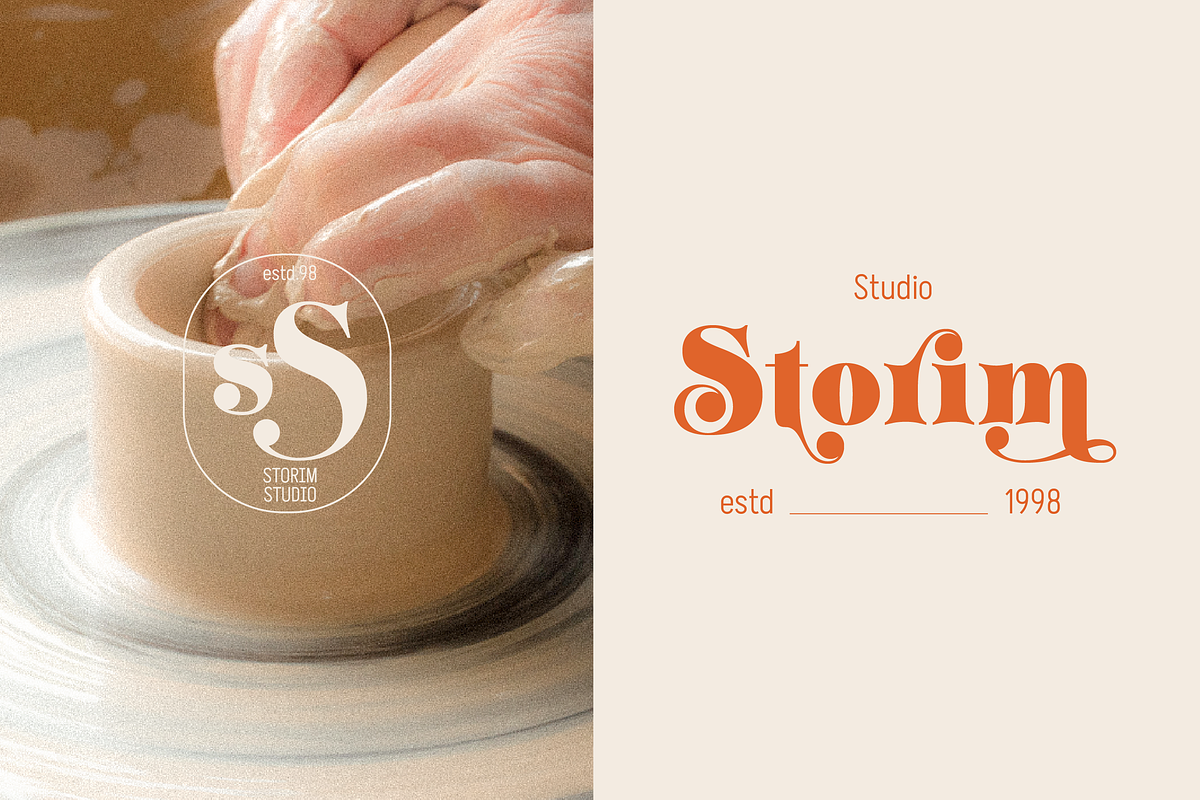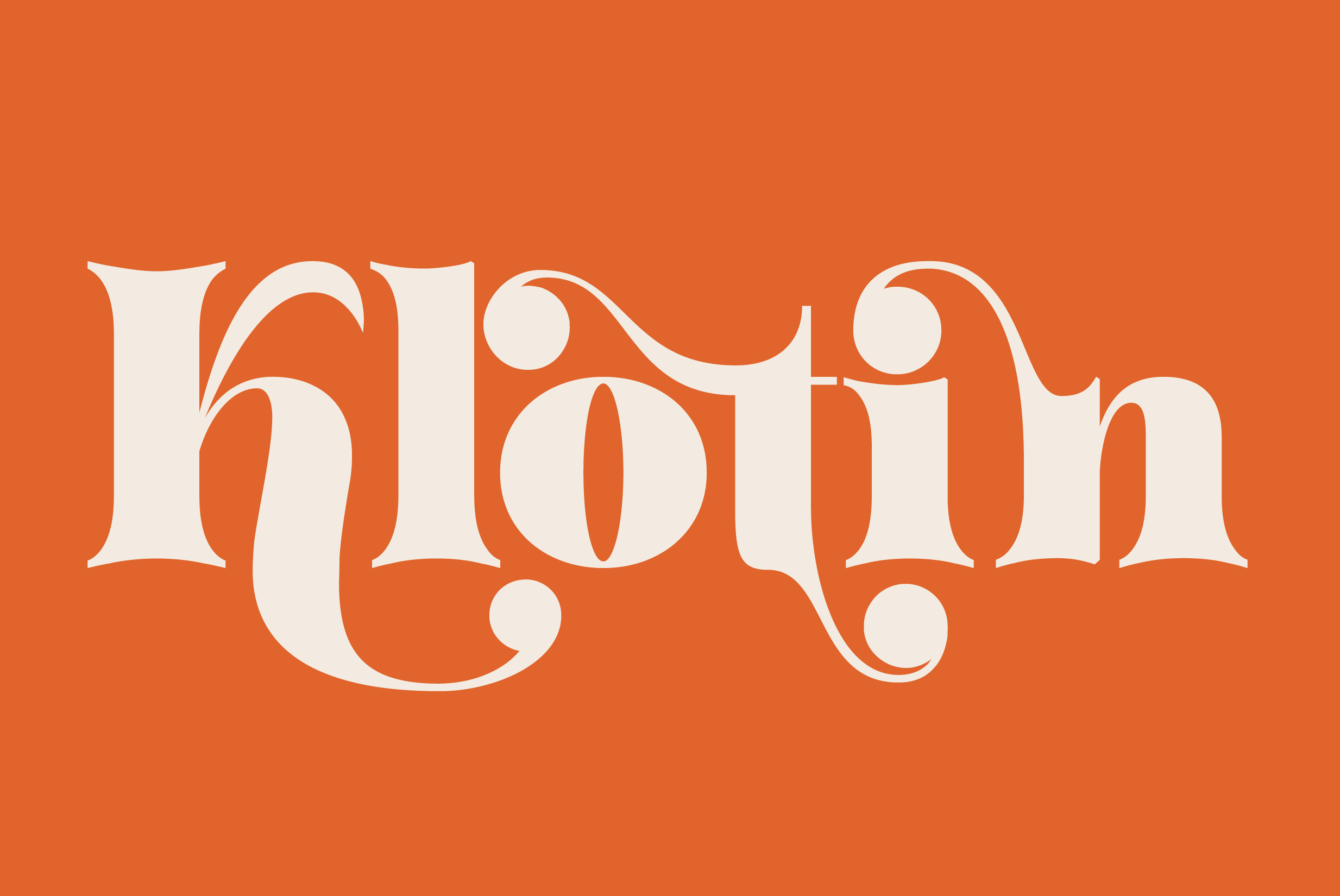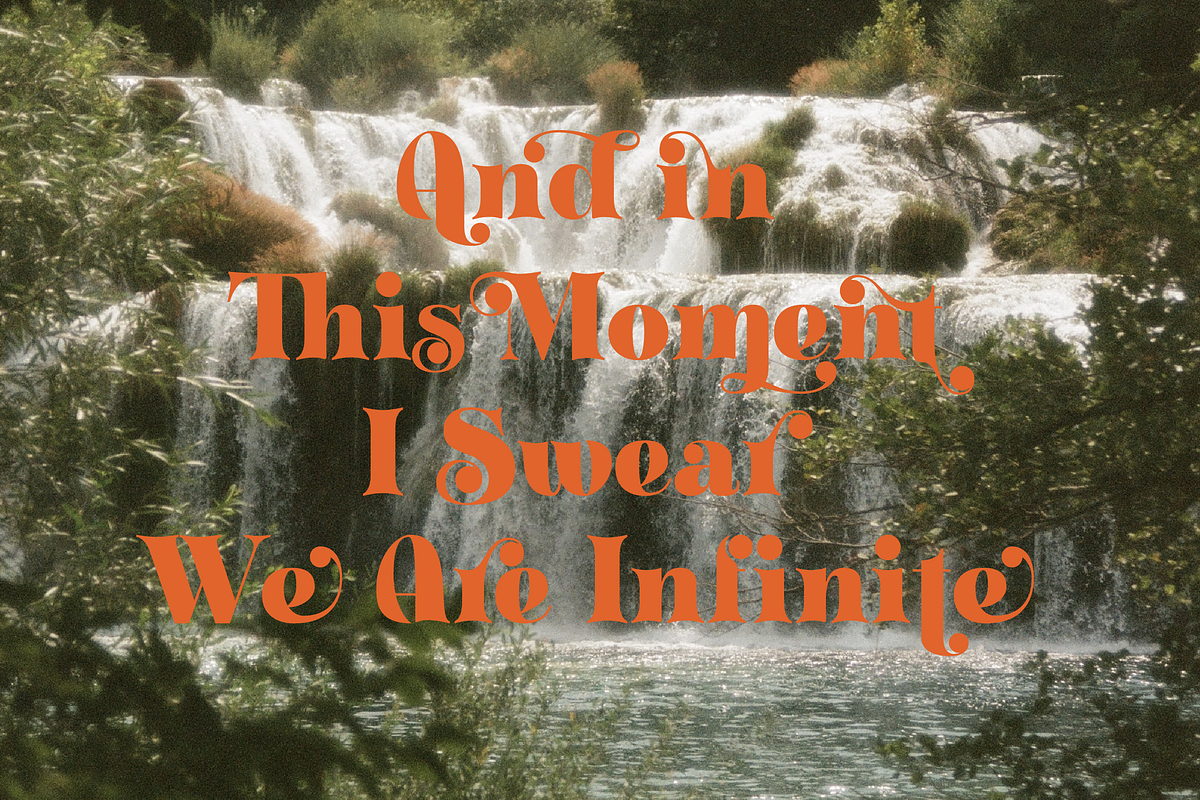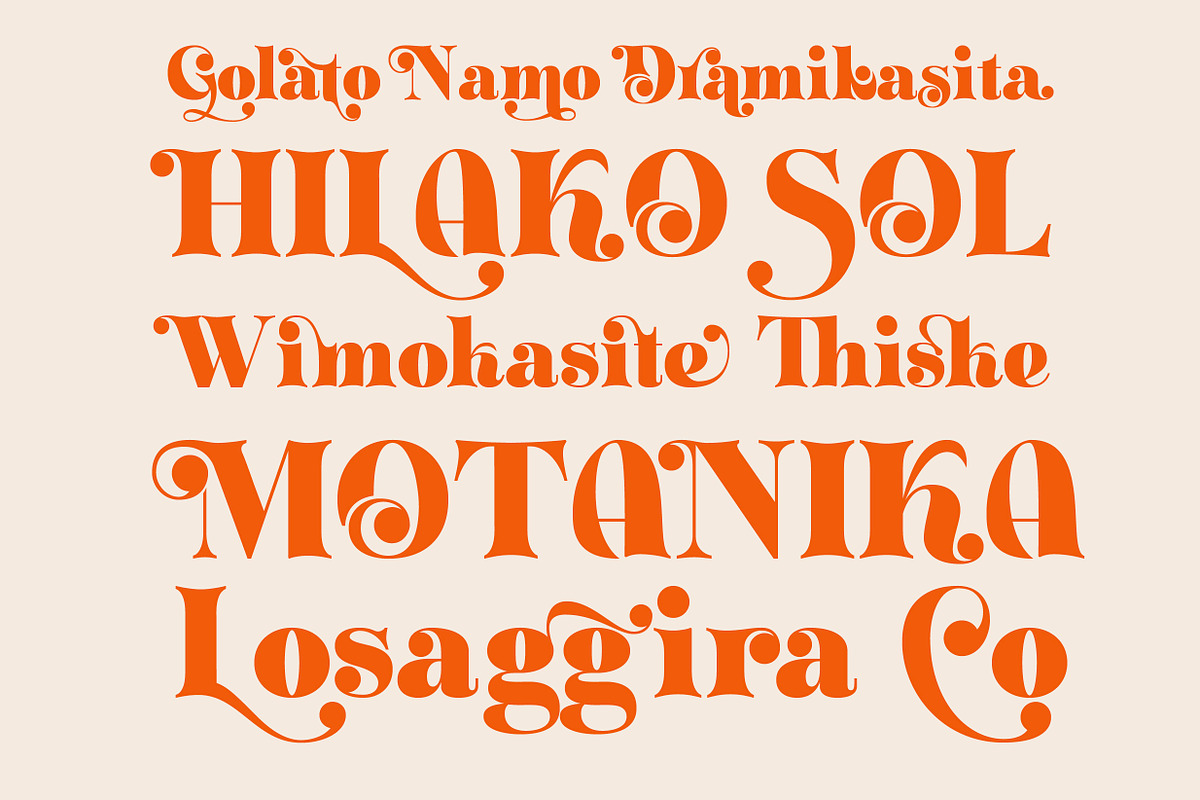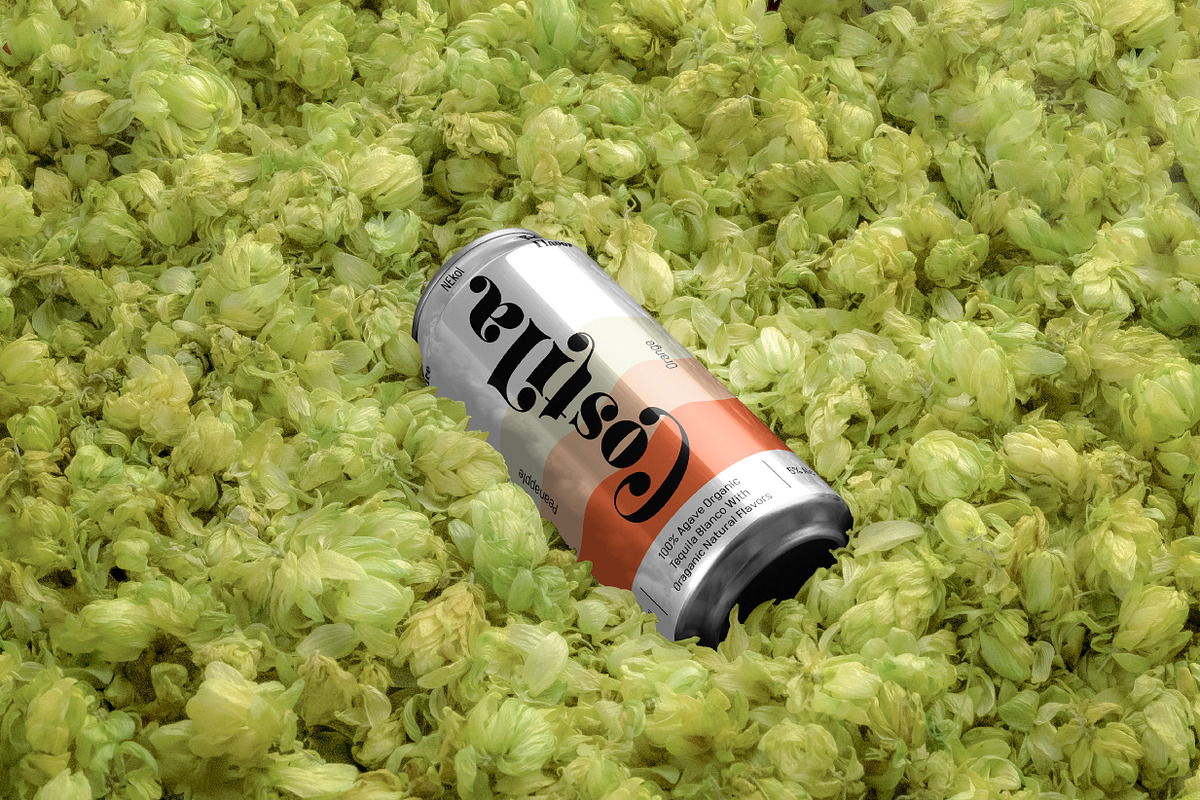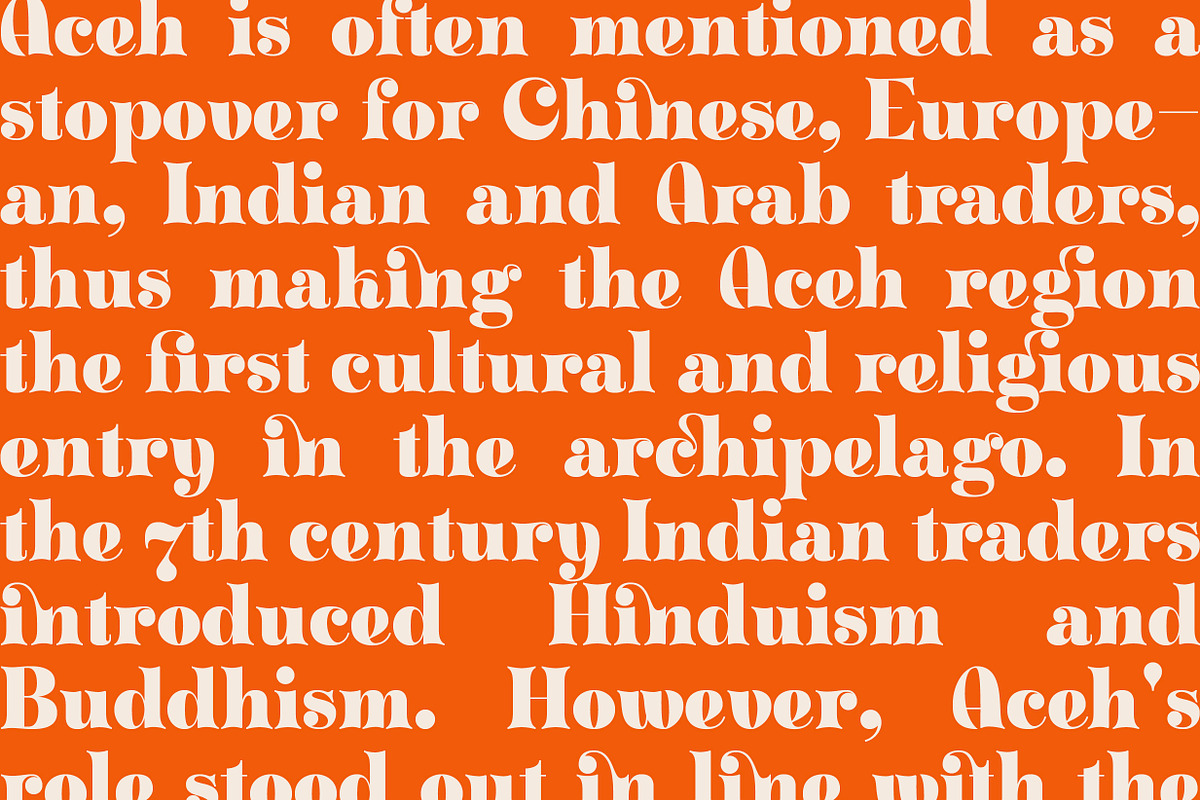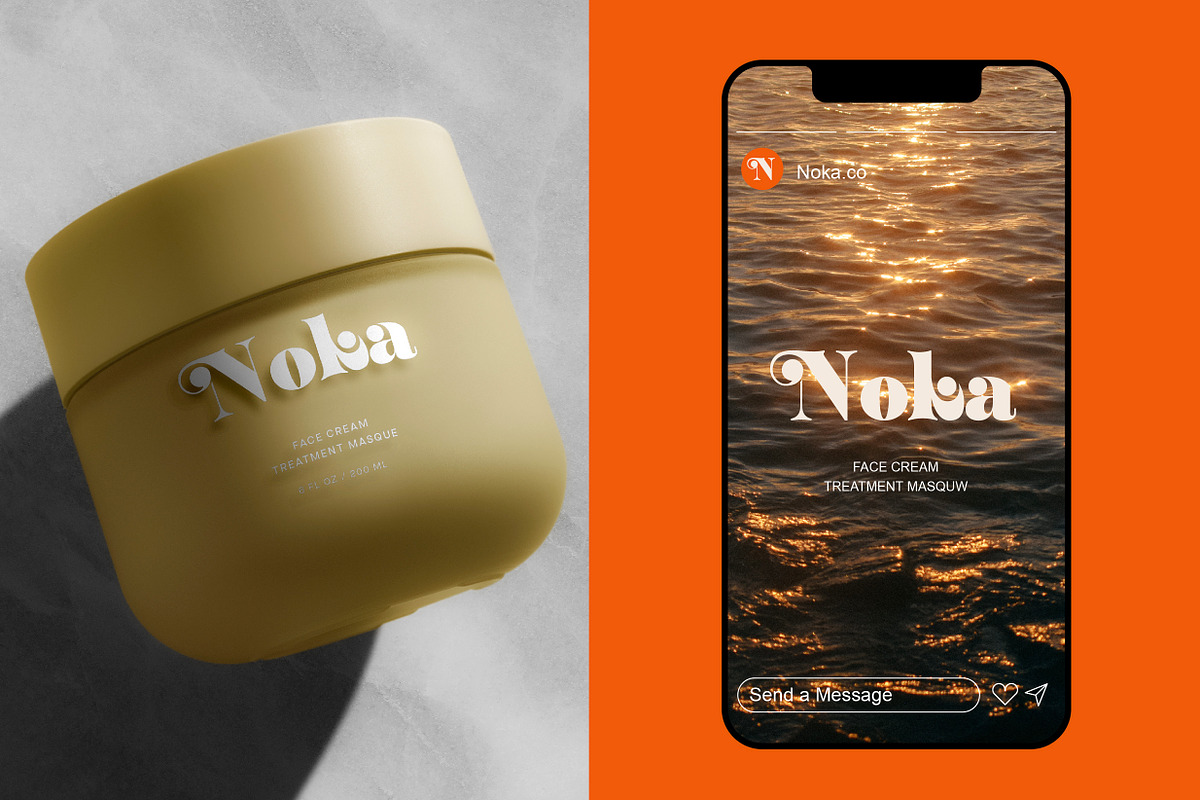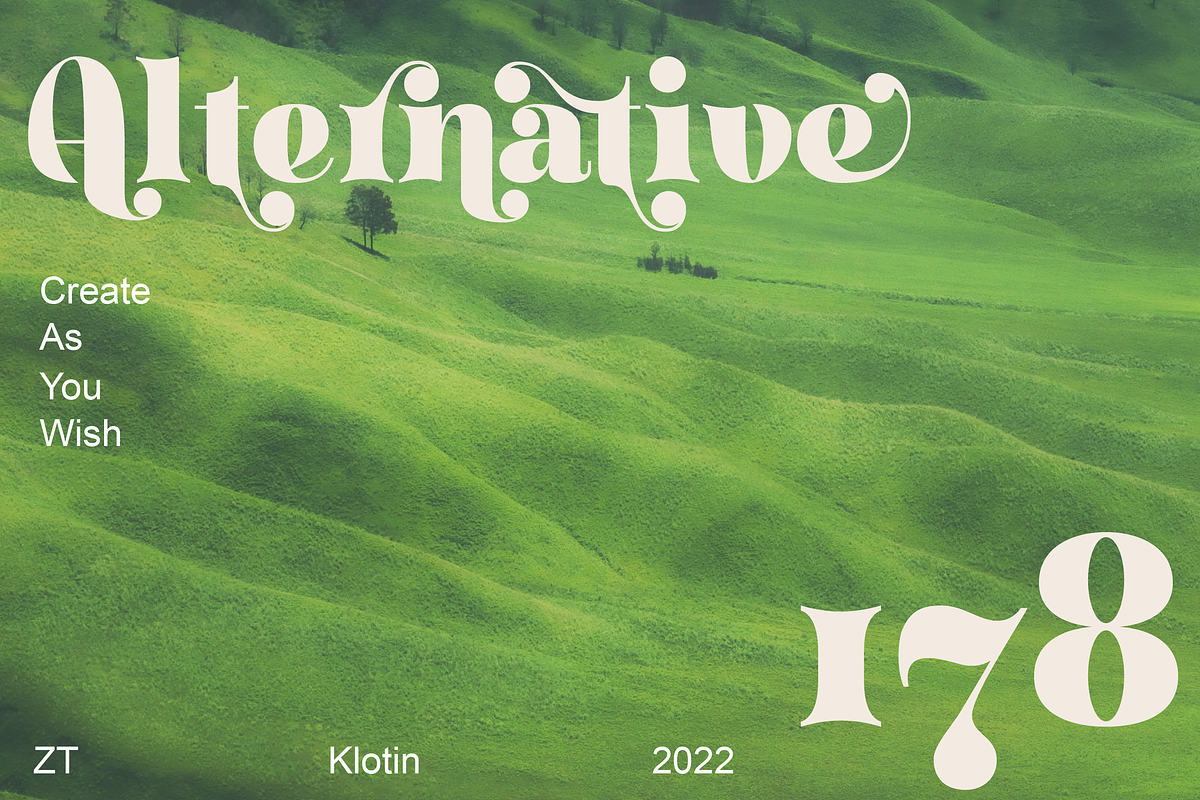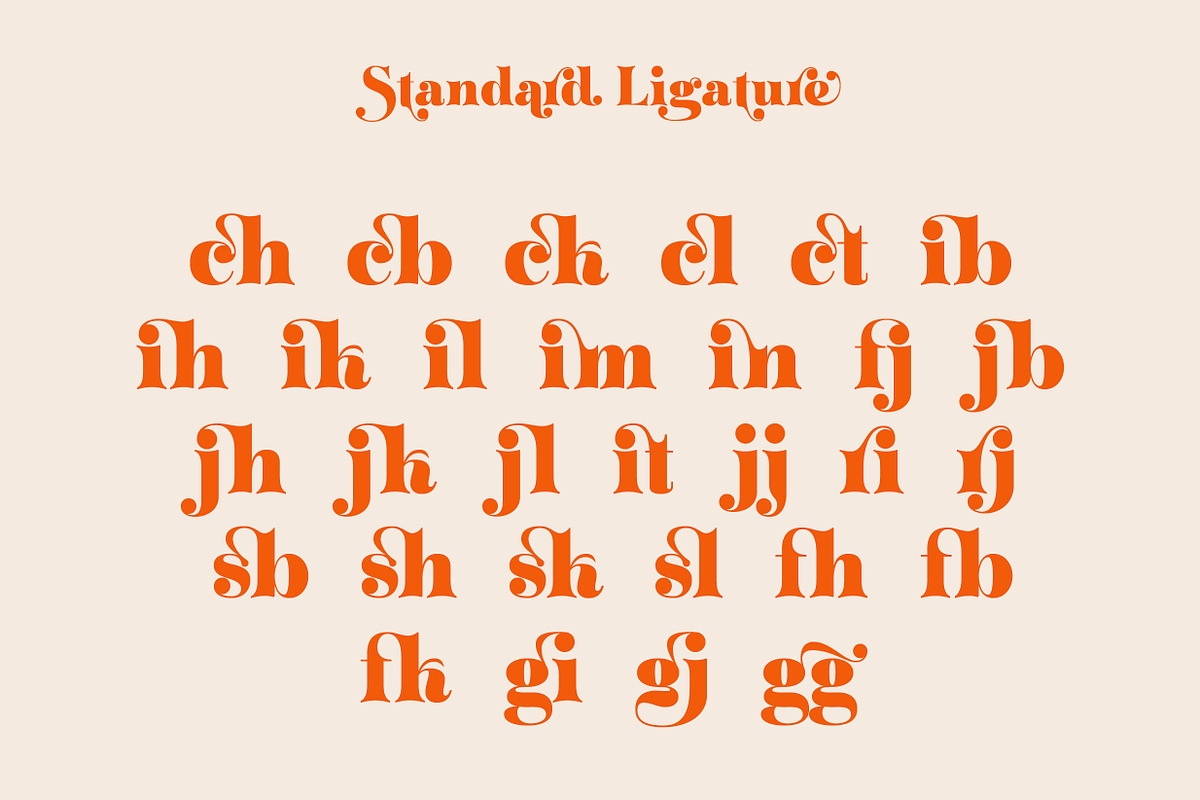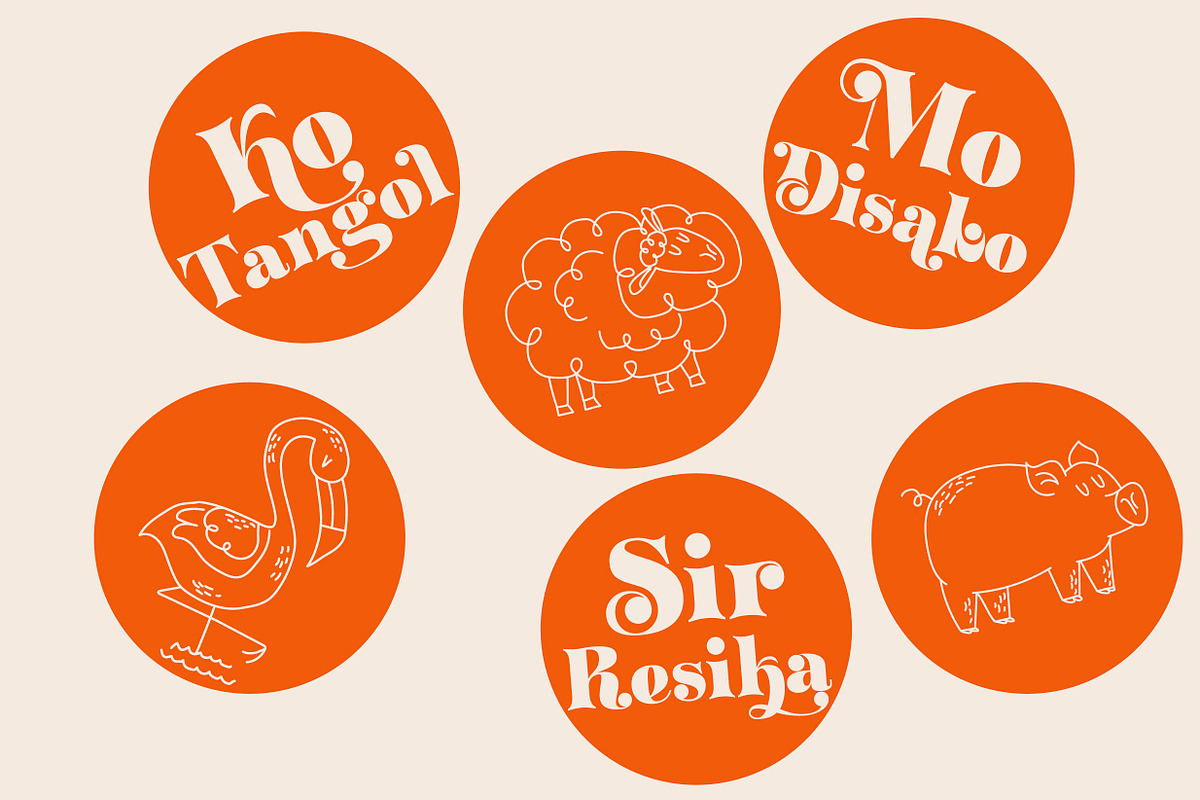
ZT Klotin - Display Typeface
ZT Klotin is a serif display font characterized by a strong, Classic vibe, with straps, special alternate glyphs, and soft Curves. Perfect for branding, weddings, social media, product design, stationery, and advertising. ZT Klotin is flexible enough to add these classic elements to almost any project requiring a special class touch.
ZT Klotin features over 178 unique ligature and alternatives, ZT Klotin is crafted to be Soft and interwoven to create a stunning display of its subtle hypnotic curves, making it the perfect choice for impactful editorial layouts and bold Bold creations.
FEATURE,
- 644 Glyphs,
- Uppercase & lowercase letters, numbers
- Old-style figure
- 40 Discretionary Ligatures & Standard Ligatures,
- 178 Alternatives (Uppercase & Lowercase)
- Symbols, punctuation.